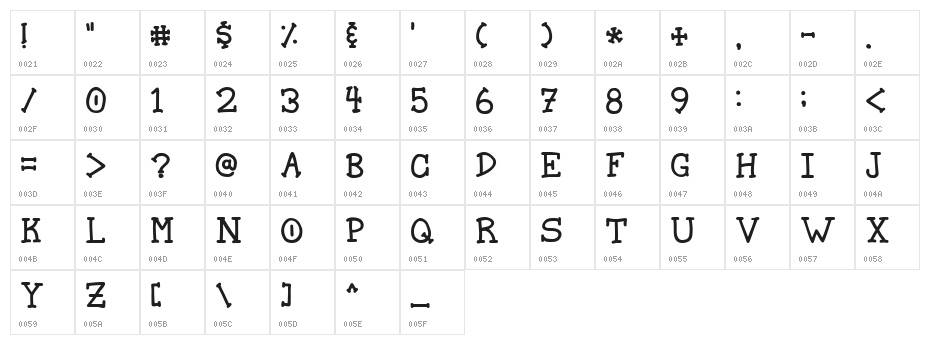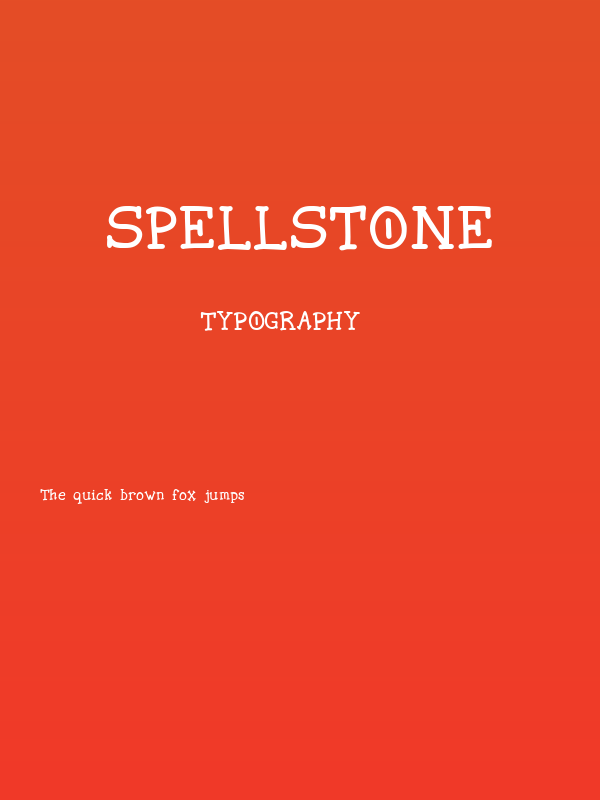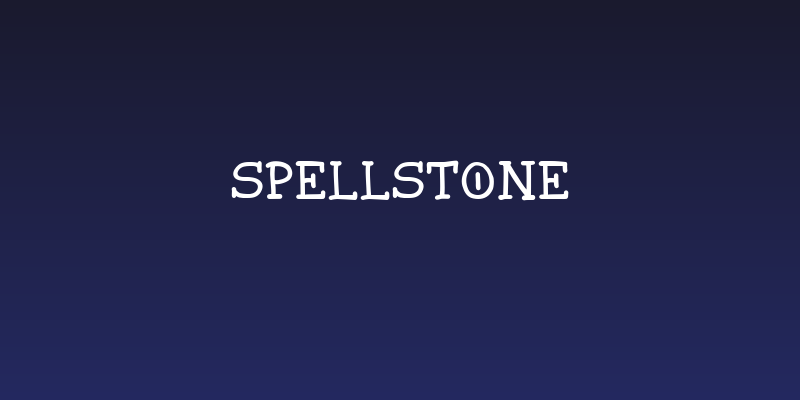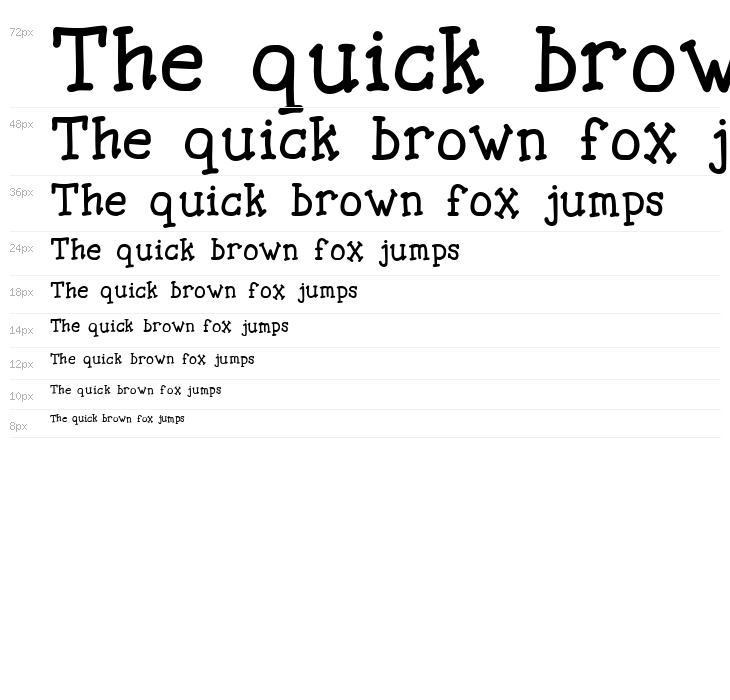
Spellstone Font
Spellstone Description
This font features a playful and whimsical design, characterized by its rounded and slightly irregular letterforms. The strokes are consistent in width, giving it a uniform appearance, while the slight variations in the curves and angles add a touch of charm and personality. The uppercase letters are bold and prominent, making them stand out, while the lowercase letters maintain a friendly and approachable look. The numerals and special characters follow the same playful style, ensuring a cohesive look across all text elements. This font is perfect for projects that require a fun and engaging aesthetic.